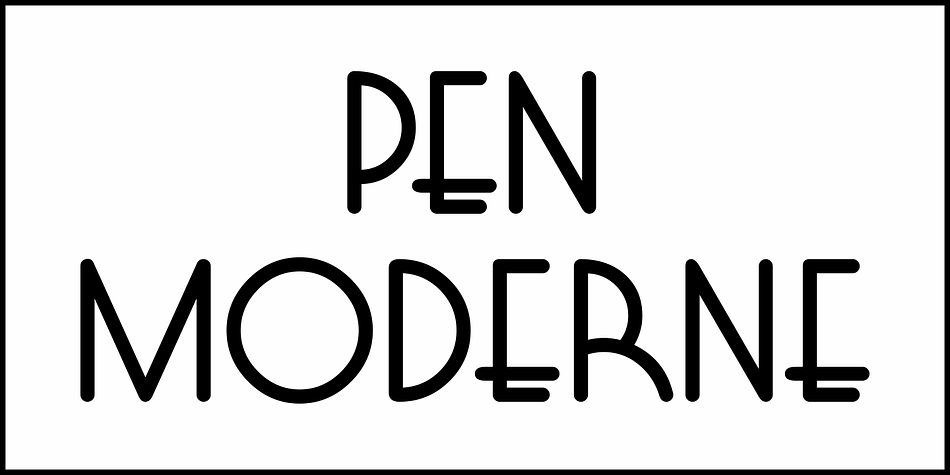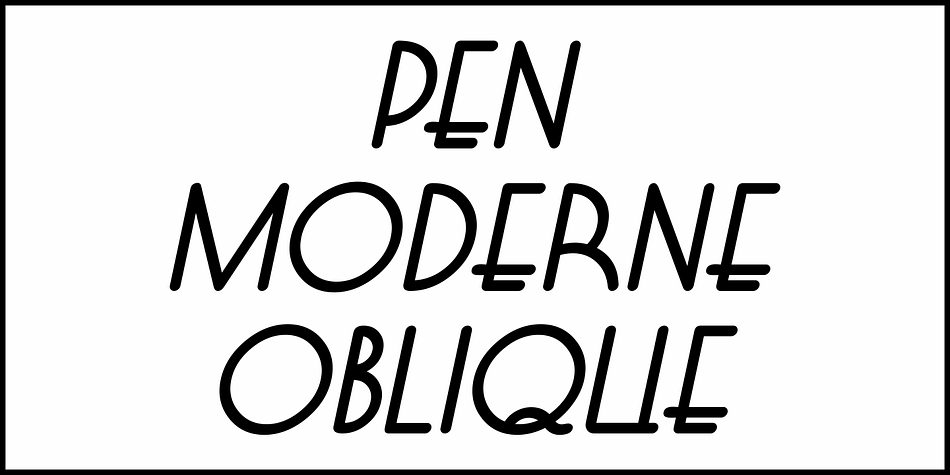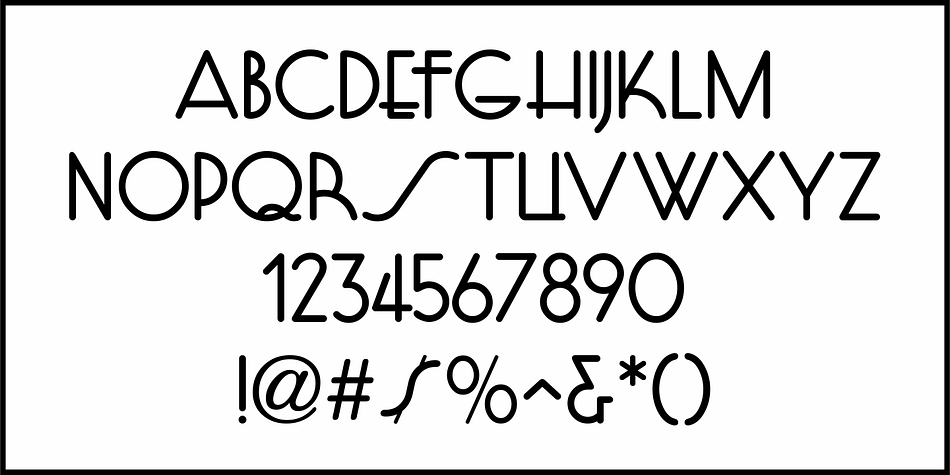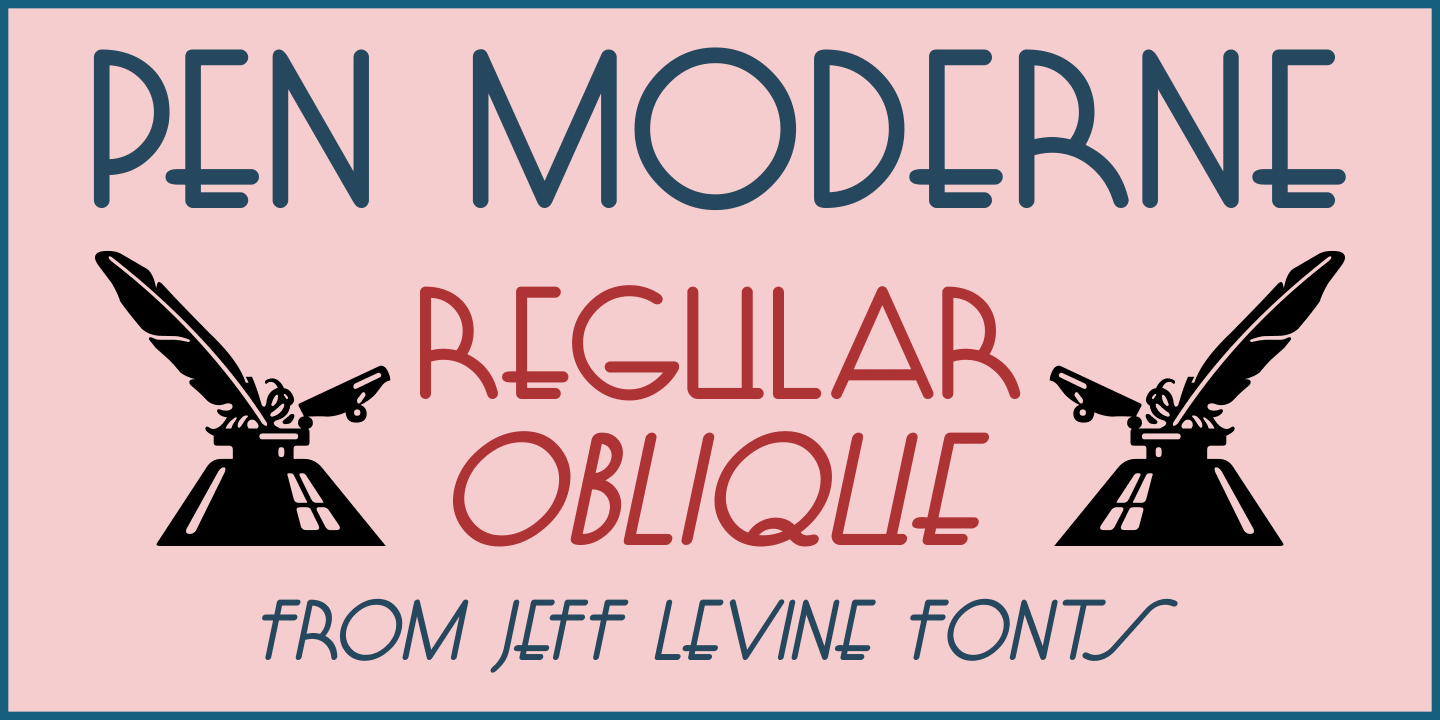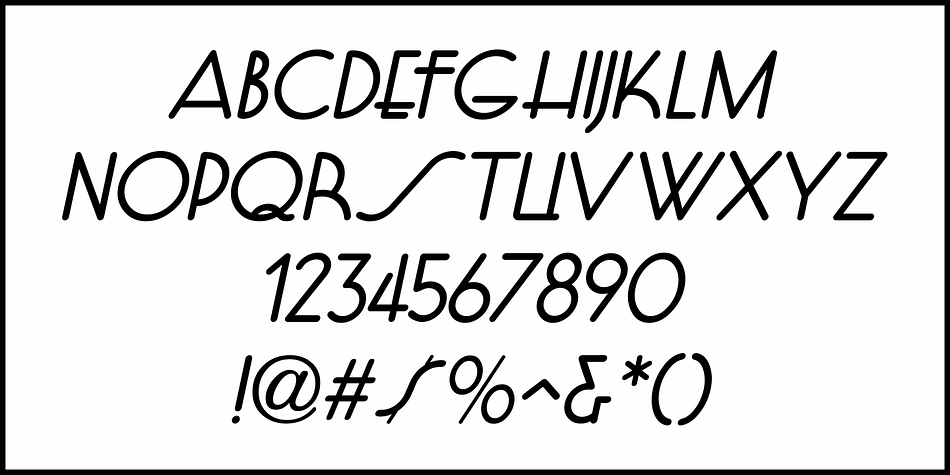
PEN MODERNE JNL
Designed by Jeff Levine, Pen Moderne JNL is an art deco font family. This typeface has two styles and was published by Jeff Levine Fonts.
A classic example of Art Deco lettering made with a round nib ink pen was found within the pages of “Lettering” by Harry B. Wright (circa 1950).
Now available as a digital type font, Pen Moderne JNL is available in both regular and oblique versions.